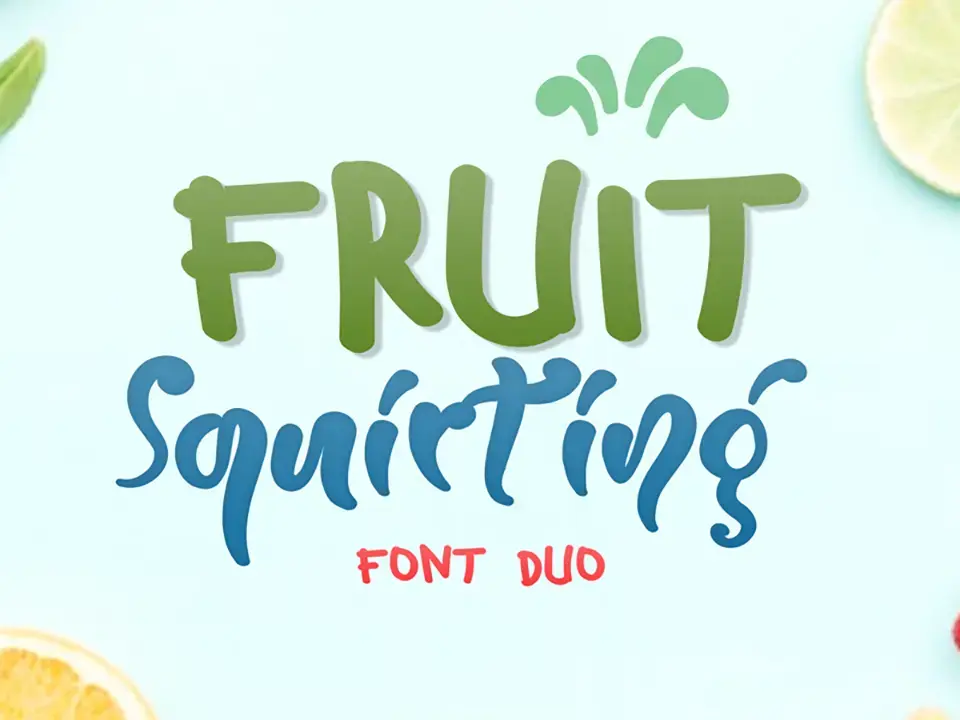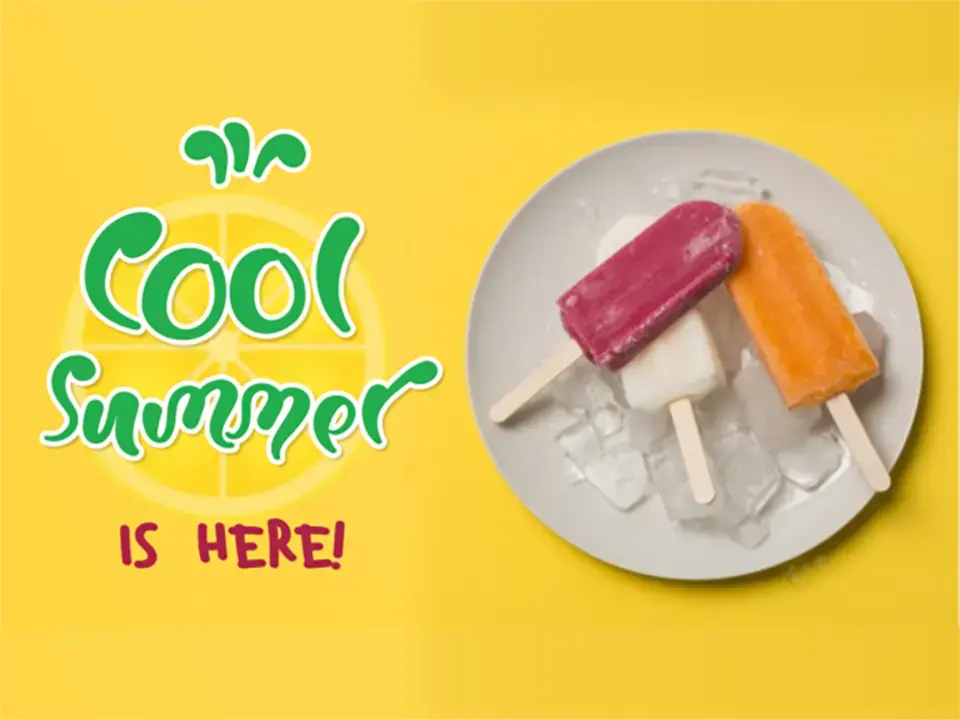
Fruit Squirting Sans Font
Fruit Squirting Sans is a playful and expressive handwritten script font that brings energy and personality to any design project. With its organic, flowing letterforms and relaxed character spacing, this typeface excels at grabbing attention on posters, children's book covers, festive invitations, and product packaging. The font's casual yet legible style makes it ideal for headlines, greeting cards, and decorative applications. Perfect for designers seeking a friendly, approachable aesthetic that stands out in display contexts.